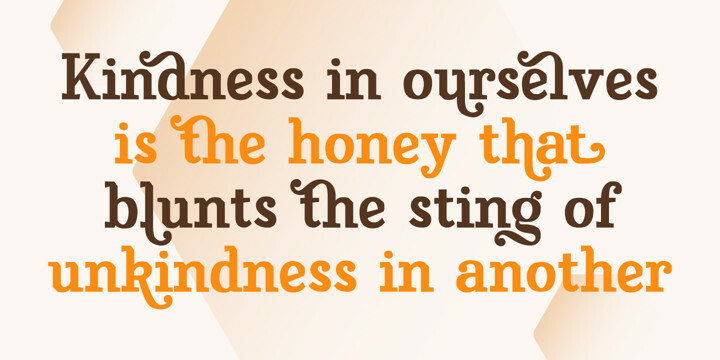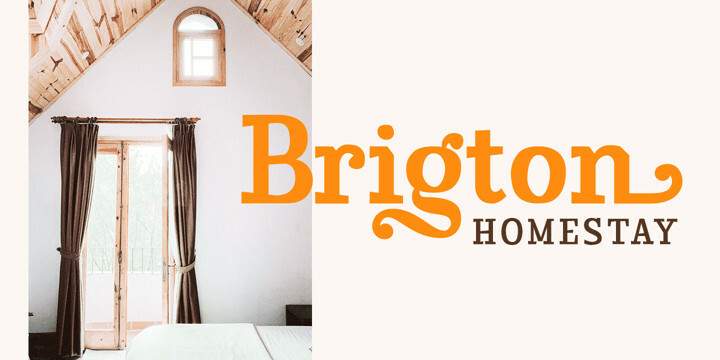
Honey Cages Font
Honey Cages FontHoney Cages is a lovely display serif font in thick weights to show friendly, expressive, motional, balanced nuances between functionality and creativity. Generally, the letter shapes are round with consistent heights and wide spaces. There are also curved wipes on some of the letters’ edges to add decorative styles. Use Honey Cages for big-sized texts for a legibility reason. This font comes with some lovely features for you to enjoy.